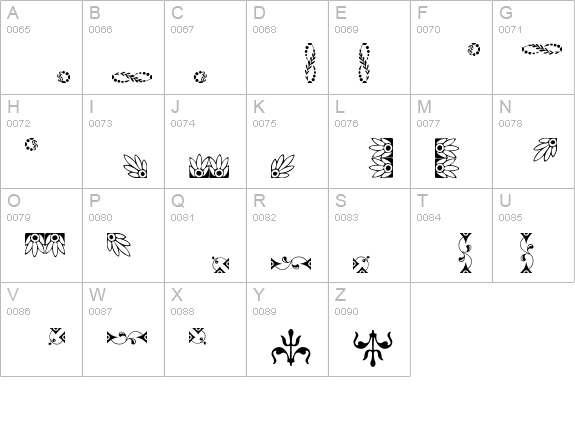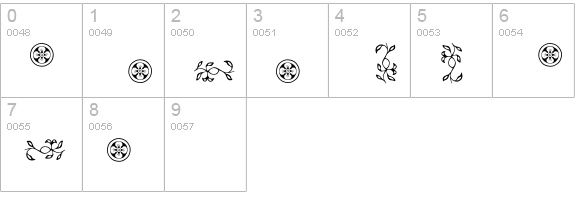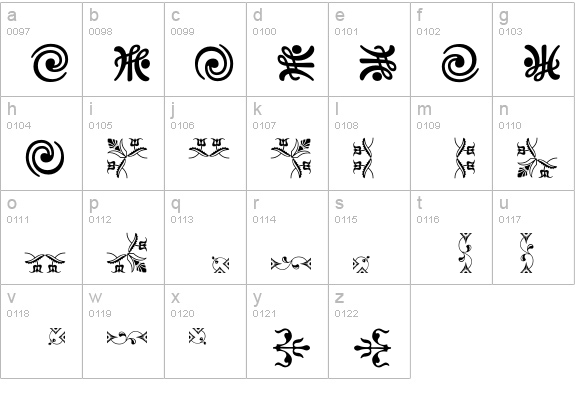
OrnamentsVillage Font Details
Introducing OrnamentsVillage font, a whimsical and decorative typeface that adds a touch of charm to any design project. This ornate font features intricate details and elegant flourishes, making it perfect for creating eye-catching headlines, invitations, and more. What sets OrnamentsVillage font apart is not only its stunning design but also the fact that it is available for free! That's right, you can download this beautiful font at FontsMarket.com without spending a penny. Whether you're working on a holiday card, wedding invitation, or branding project, OrnamentsVillage font will bring a touch of magic to your creations. With its unique style and versatility, OrnamentsVillage font is sure to become a favorite in your font collection. Download it today and let your creativity shine with this delightful typeface.